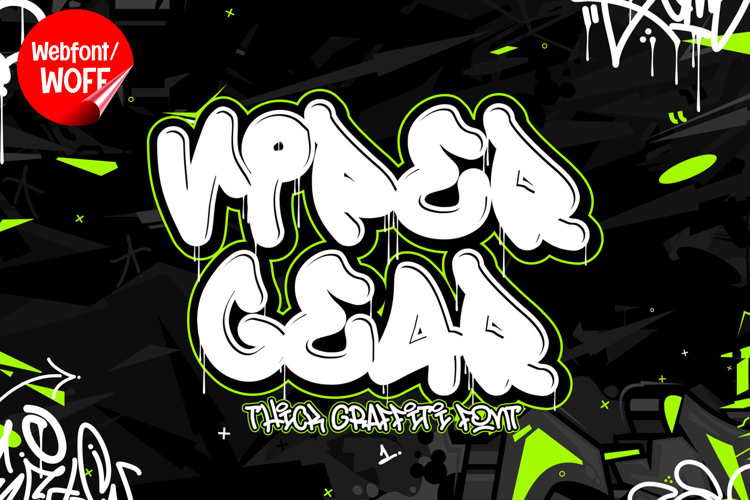
Viper Gear | Dripping Graffiti Webfont for Urban Websites
Viper Gear is a dripping graffiti webfont designed to bring raw street energy and bold expression into modern website design. Inspired by spray paint drips and urban wall art, this font features strong letterforms enhanced with liquid-like dripping details that create a gritty and authentic graffiti look. It is an excellent choice for projects that need a powerful, edgy, and visually striking typographic style.
Viper Gear includes a complete set of uppercase characters designed with bold graffiti shapes and dripping accents. The thick strokes give each letter a solid and impactful presence, while the drip effects add movement and texture. These letterforms are ideal for headlines, banners, hero sections, and featured content where attention-grabbing typography is essential.
In addition to letters, the font includes numbers and punctuation, allowing flexible usage across various parts of a website. It works well for promotional text, event announcements, pricing displays, and navigation highlights. Each character maintains a consistent dripping graffiti style, ensuring a cohesive and unified visual identity throughout the layout.
With multilingual support, Viper Gear includes a wide range of accented characters, making it suitable for international websites and global audiences. This allows content to be displayed clearly across different languages while preserving the expressive graffiti aesthetic.
The dripping graffiti style of Viper Gear makes it especially suitable for urban-themed websites, streetwear brands, music platforms, gaming interfaces, and creative portfolios. Its textured and fluid appearance adds intensity and personality, helping websites stand out in competitive digital spaces. The drip effect also reinforces a raw and rebellious visual tone.
Despite its bold and decorative appearance, Viper Gear is designed with readability in mind. The spacing and structure of each character are carefully balanced to ensure clarity, particularly in display sizes. This makes it effective for impactful headings and short content elements where both style and usability are important.
Viper Gear is a webfont that combines graffiti aesthetics with dripping effects and modern digital functionality. Its bold shapes, fluid details, and urban influence create a distinctive typographic presence that enhances website design. For projects that require strong visual impact, expressive style, and a street-inspired identity, Viper Gear offers a powerful and engaging solution.